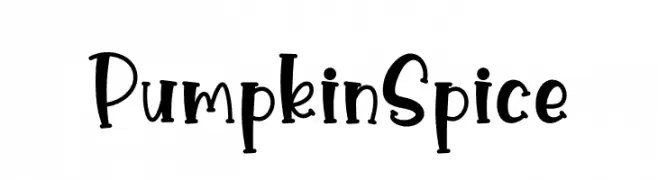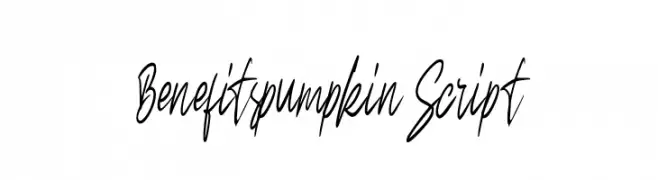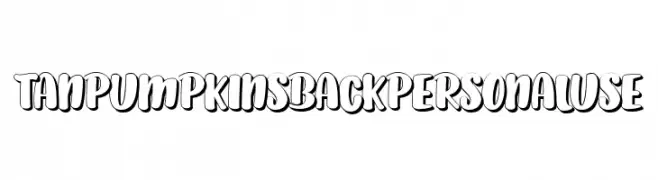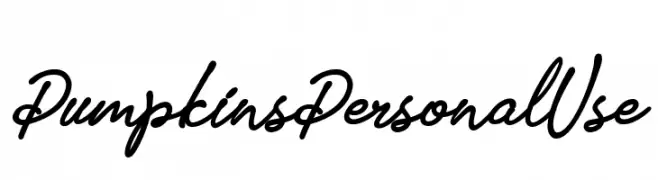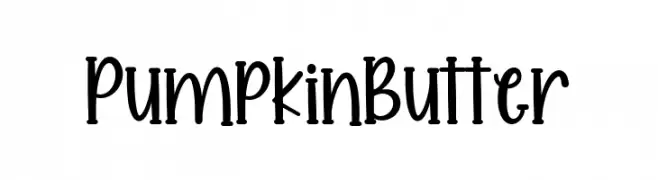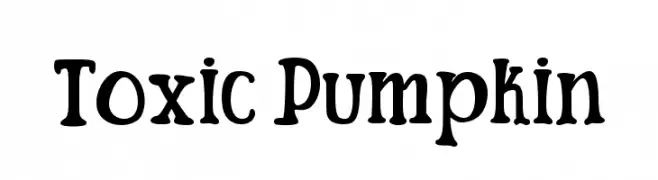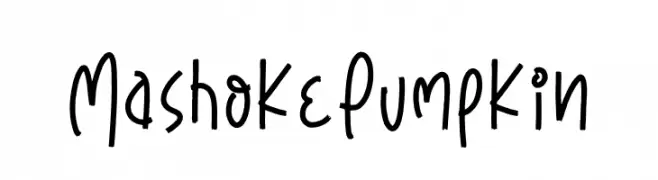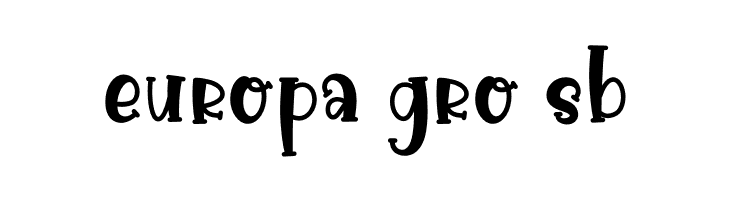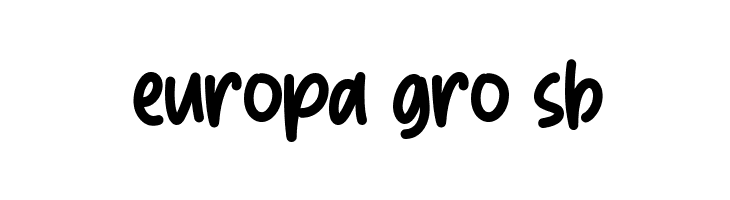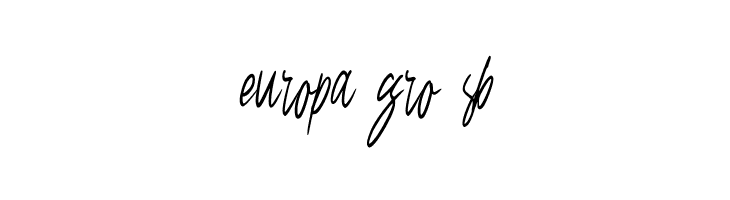
A playful, hand-drawn font with bold, rounded characters and whimsical charm.
A playful, bold handwritten font with a casual and friendly vibe.
A dynamic and fluid script font with elegant, flowing letterforms.
A playful, bold font with a 3D shadow effect and rounded, flowing characters.
A bold, playful font with rounded strokes and a slightly condensed style.
A flowing, cursive script with elegant loops and swashes.
A playful, handwritten font with a whimsical and elegant style.
A playful, spooky font ideal for Halloween themes.
A playful, whimsical font with a spooky, hand-drawn style.
A playful handwritten font with a casual and friendly style.